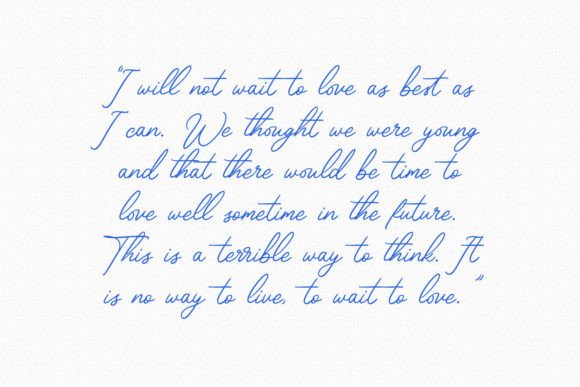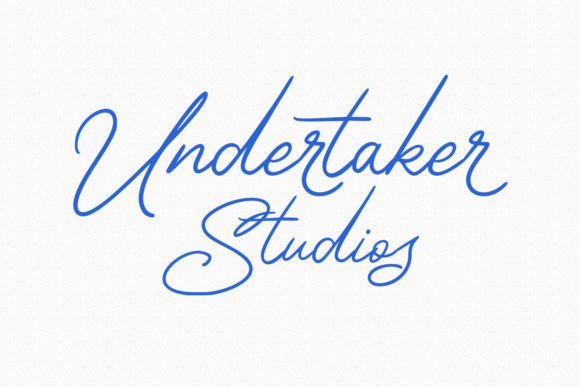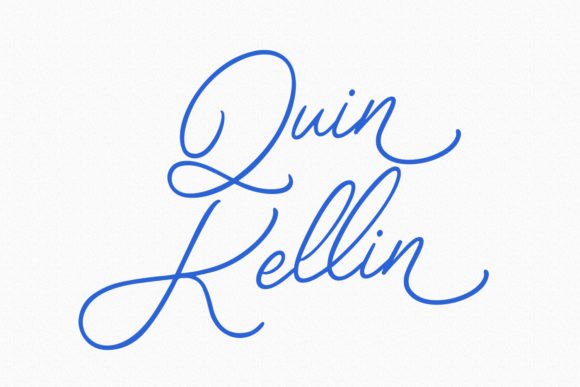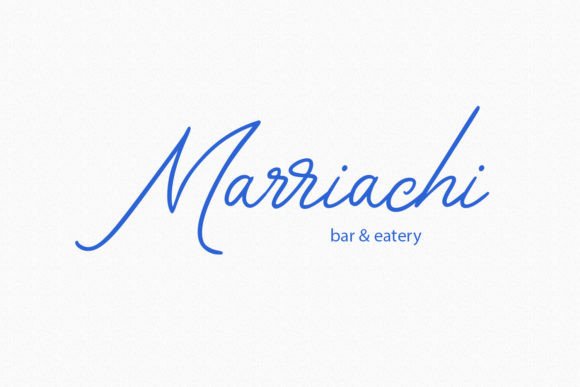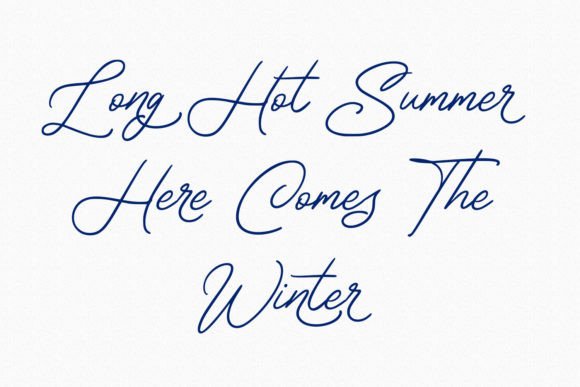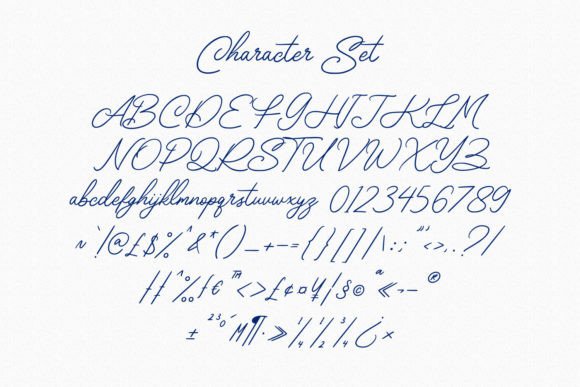
About Cloffisy Font
The Cloffisy Font download offers a beautifully casual yet refined script style that effortlessly blends elegance with modern flair. This font is perfect for creatives seeking a typeface that adds charm, fluidity, and sophistication to any project. Its smooth curves and calligraphic inspiration give it a timeless character while maintaining a trendy appeal.
Cloffisy’s flowing lines and gentle movement make it highly readable and perfectly suited for branding, design work, and visual storytelling.
Ideal for Stylish Designs
You can confidently use the Cloffisy Font download for:
Elegant logo designs and boutique branding
Wedding invitations and stationery
Feminine blog headers and Instagram highlights
Personalized merchandise and quote prints
Editorials, packaging, and lifestyle content
The font adapts seamlessly to both professional and personal applications.
Why You’ll Love Cloffisy
Here’s what makes the Cloffisy Font download a must-have:
Contemporary script with classic calligraphic roots
Soft, flowing characters ideal for chic, elegant layouts
Balanced for both digital and print formats
Whether used in minimalist projects or lavish this font adds an elevated feel to your work.
From stylish logos to heartfelt greeting cards, the Cloffisy Font download gives your designs a modern yet edge. Let this script become your new go-to for adding an elegant signature touch to your creations.